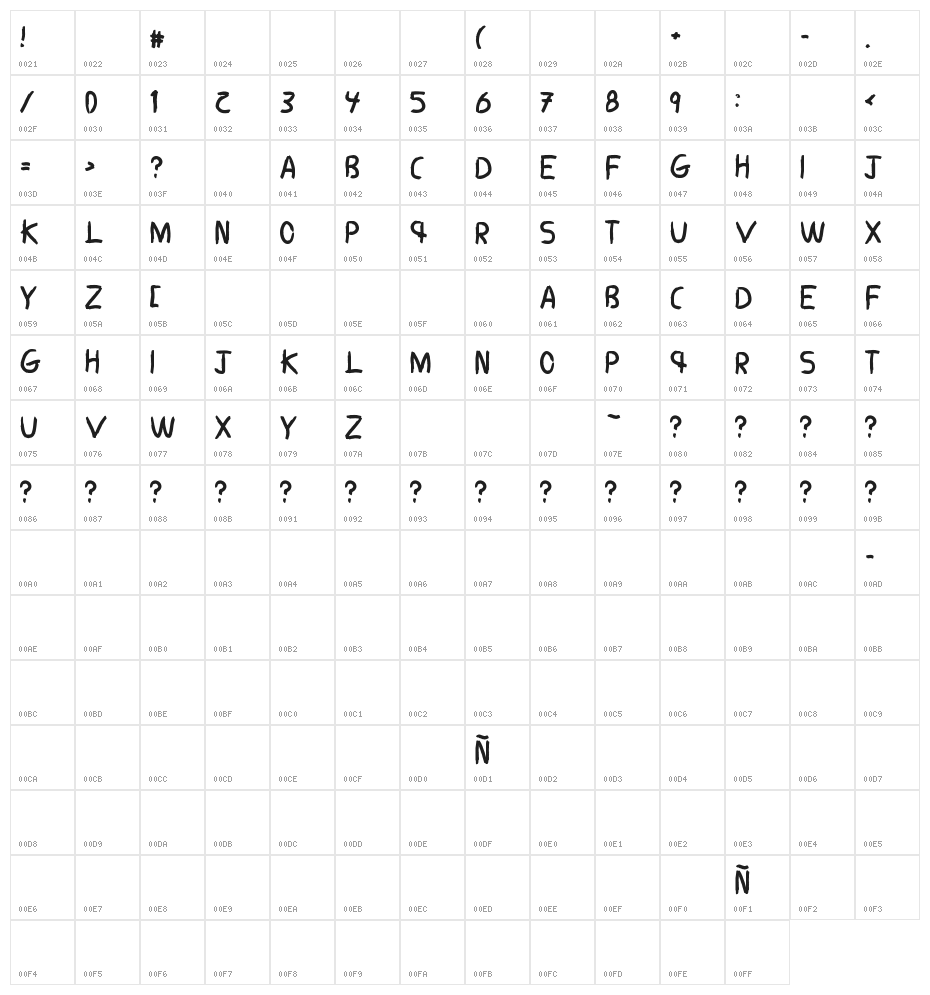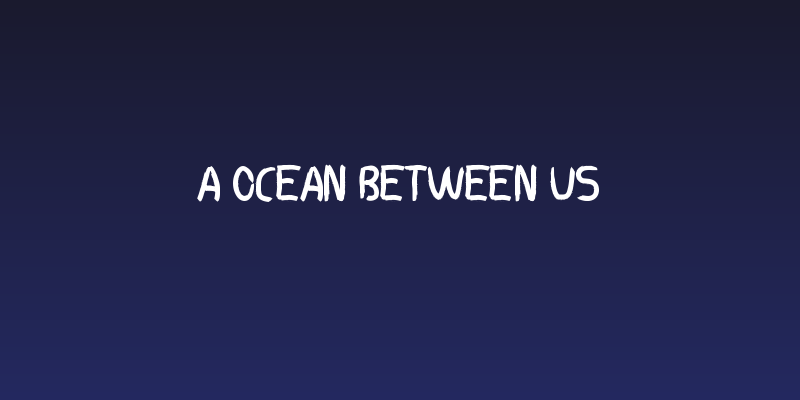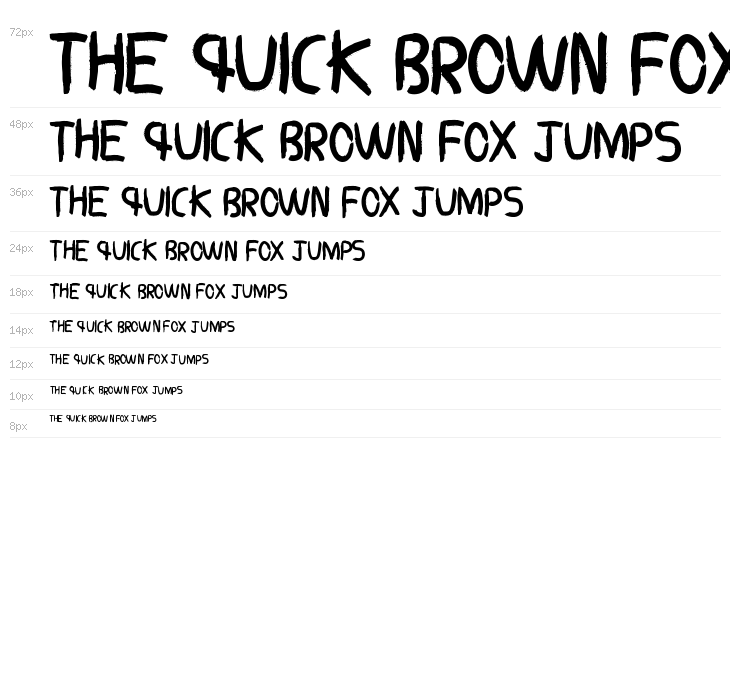
A ocean between US Font
A ocean between US Description
This font features a bold, handwritten style with a casual and artistic flair. The letters are slightly irregular, giving it a natural and organic feel. The strokes are thick and uneven, adding to its hand-drawn appearance. Each character maintains a consistent height, but the width varies, contributing to its dynamic look. The numbers and special characters follow the same style, ensuring a cohesive appearance across all elements. This font is ideal for projects that require a personal touch or a creative, informal vibe.
| Proposed Projects | Ideal for greeting cards, posters, logos, and creative branding projects. |